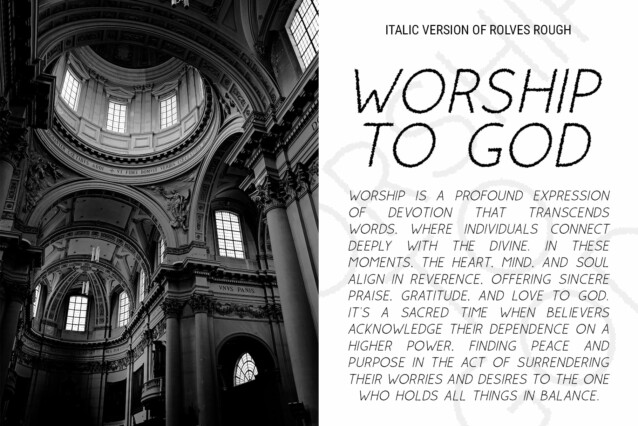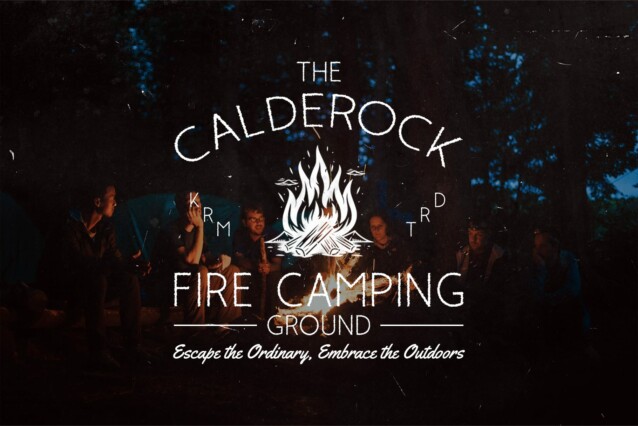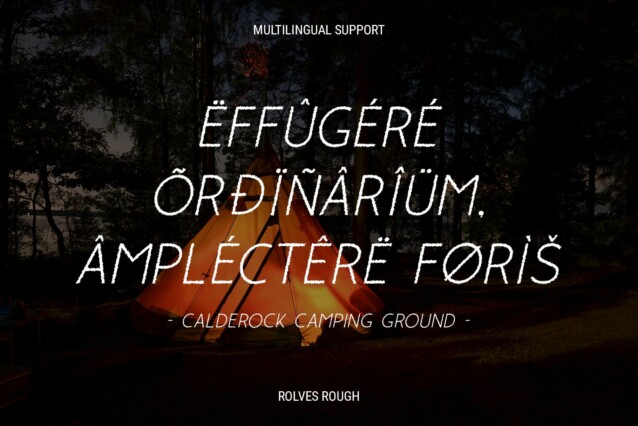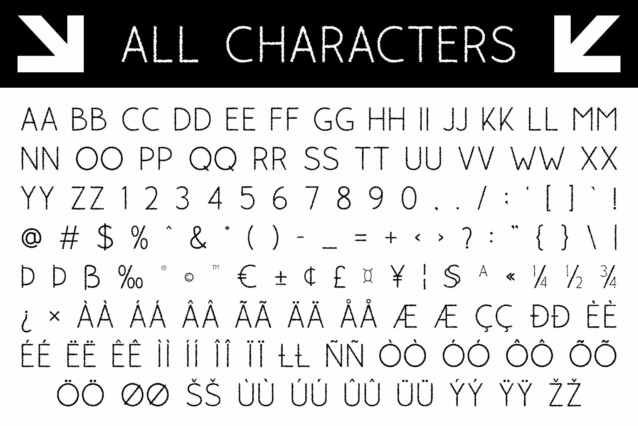
Rolves Rough Font
Rolves Rough Font is a modern sans serif font that masterfully combines elegance with a rough effect, offering a sophisticated yet distinctive appearance. The traditional sans serif design is enhanced by a textured finish, adding depth and character to each letterform.